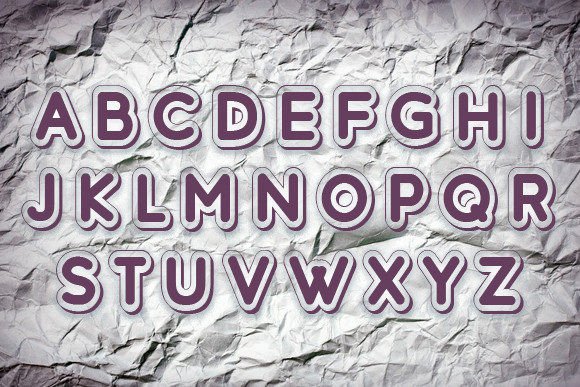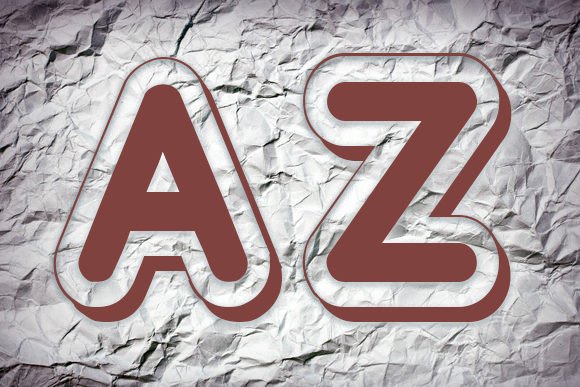
The Birth of a Masterpiece: Unveiling the Binman Font
Have you ever stared at a blank canvas, your mind racing with ideas, but unable to bring them to life? You’re not alone. We’ve all been there – the blank page, the empty design software, the endless possibilities. And then, it hits you. A spark of inspiration, a dash of creativity, and suddenly, your vision starts to take shape.
This is where the Binman Font comes in – a stunning display font that’s sure to elevate your designs and leave a lasting impression. Whether you’re creating posters, flyers, T-shirts, or anything in between, this font is the perfect addition to your design arsenal. With its unique style and versatility, the Binman Font is a valuable asset for designers looking to take their work to the next level.
Binman Font Key Features
- Font Family: Binman Font is a sans-serif typeface designed for use in digital displays, particularly in the context of video games and interactive media.
- Character Set: The font includes a comprehensive set of characters, including Latin, Cyrillic, and Greek alphabets, as well as various punctuation marks and symbols.
- Unique Characteristics: Binman Font features a distinctive, futuristic aesthetic with clean lines, geometric shapes, and a minimalist design approach, making it well-suited for modern and sci-fi themed applications.
Binman Font Review
I recently had the chance to work with the Binman Font, and I have to say it’s a mixed bag. Let’s start with what works well:
- ✨ Unique style: Binman Font has a distinct, quirky feel to it that can be really effective in the right context.
- ✨ High legibility: Despite its unusual design, the font is surprisingly easy to read, even at smaller sizes.
- ✨ Customizable: Binman Font comes in a range of weights and styles, giving you plenty of options to experiment with.
However, there are also some limitations:
- ⚠️ Limited compatibility: I encountered some issues with Binman Font not rendering correctly in certain browsers or font managers.
- ⚠️ Limited language support: Binman Font seems to be primarily designed for English-language use, and I noticed some issues with non-ASCII characters.
Overall, I’d say Binman Font is a great choice for projects where you want to add a touch of personality and whimsy. Just be aware of its limitations and test it thoroughly before committing to using it.
The Binman Font is a versatile font that can be used for a variety of purposes, including creating bold headings, adding a touch of humor to your designs, and creating eye-catching titles. To get the most out of the font, try using it in combination with other bold or playful fonts. Experiment with different font sizes and colors to create a visually appealing design.